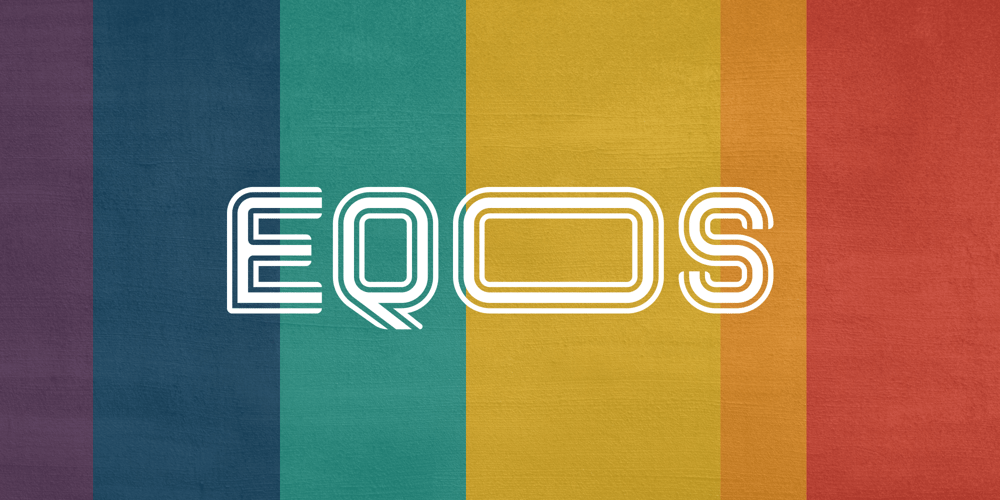
Eqoos
Eqoos font
Eqoos Font Family was designed by Irsad Waroid Musyaffa and published by Iwm Design. Eqoos contains 2 styles and family package options. Eqoos font captivates with its distinctive stripe style, exuding a modern and professional vibe. Perfect for logos, brand identities, and promotional materials, this font seamlessly combines robust typography with trendy elegance, infusing a unique and captivating visual appeal into your graphic designs.